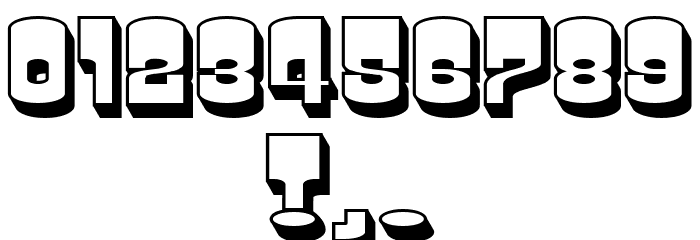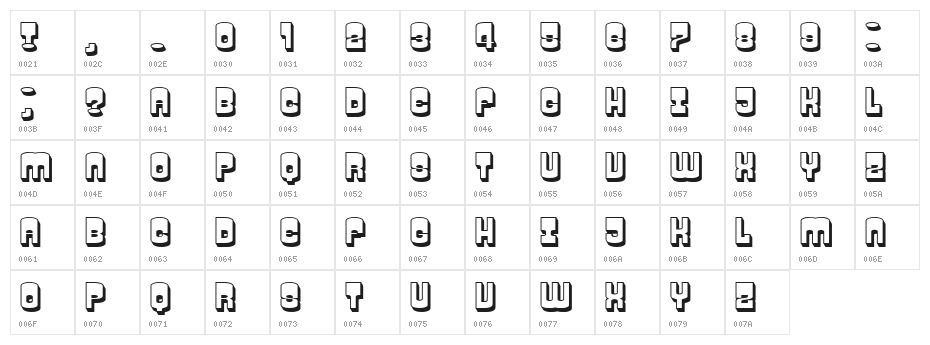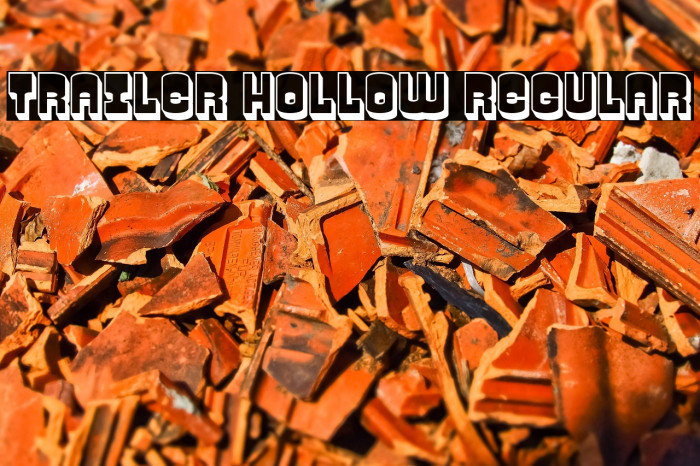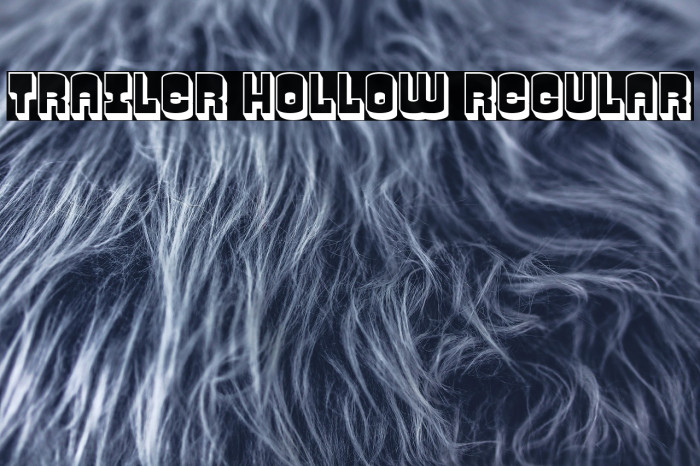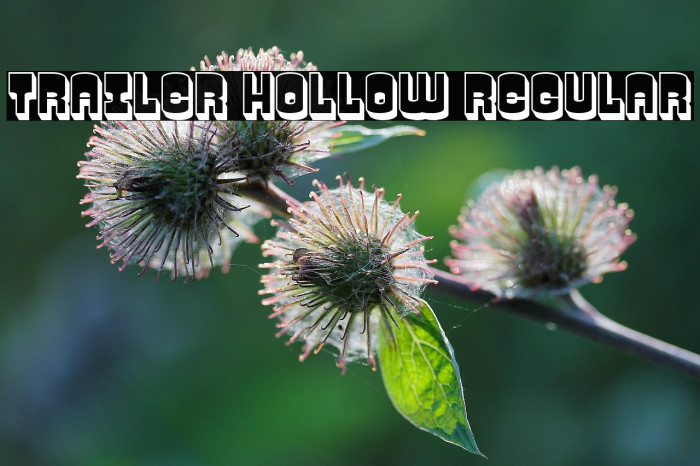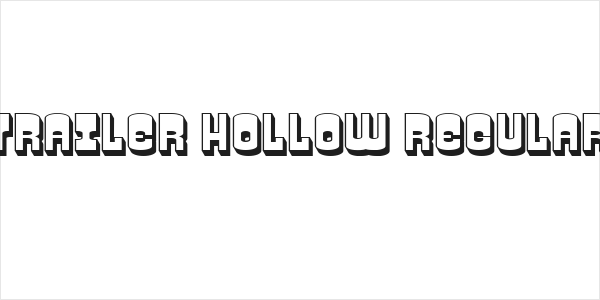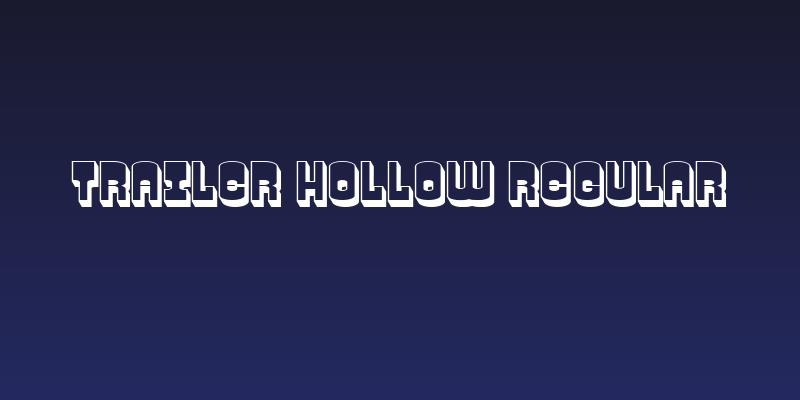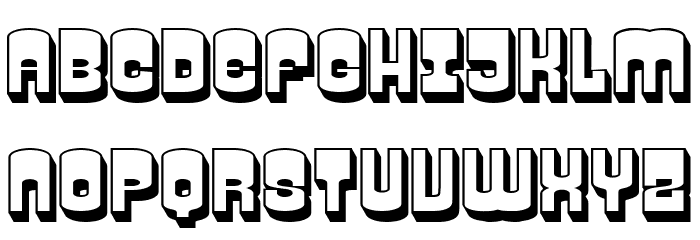
Trailer Hollow Regular Font
Trailer Hollow Regular Description
This font features a bold, three-dimensional style with a hollow interior, giving it a striking and eye-catching appearance. The characters are uppercase and have a blocky, geometric shape with sharp angles and clean lines. The shadow effect adds depth, making the letters appear to pop off the page. This design is reminiscent of retro or vintage styles, often used in signage or posters to grab attention. The font's boldness and unique style make it suitable for projects that require a strong visual impact.
| Proposed Projects | Ideal for posters, signage, headlines, and any design needing a strong, retro aesthetic. |